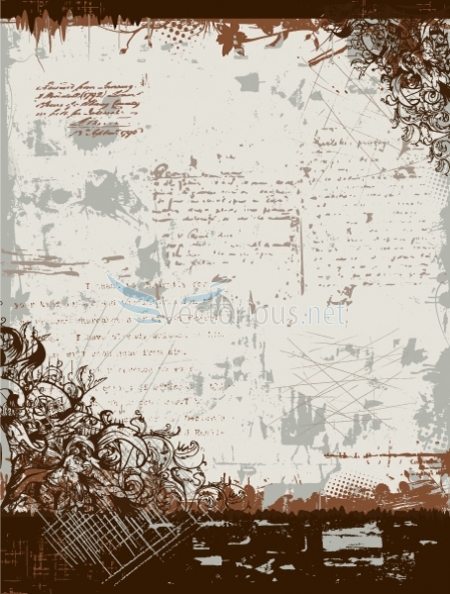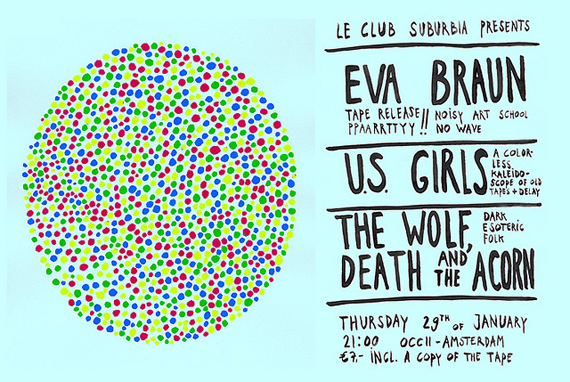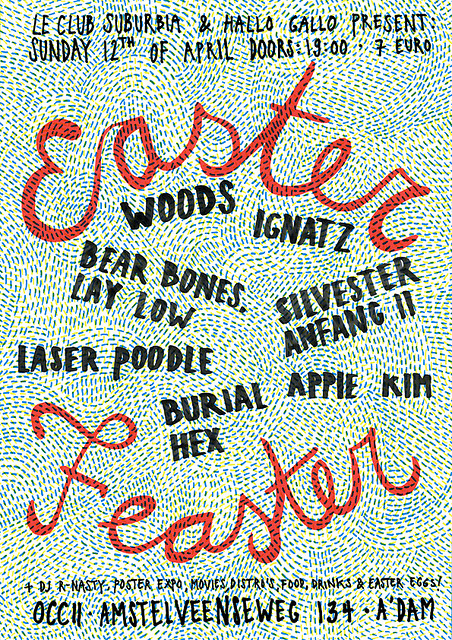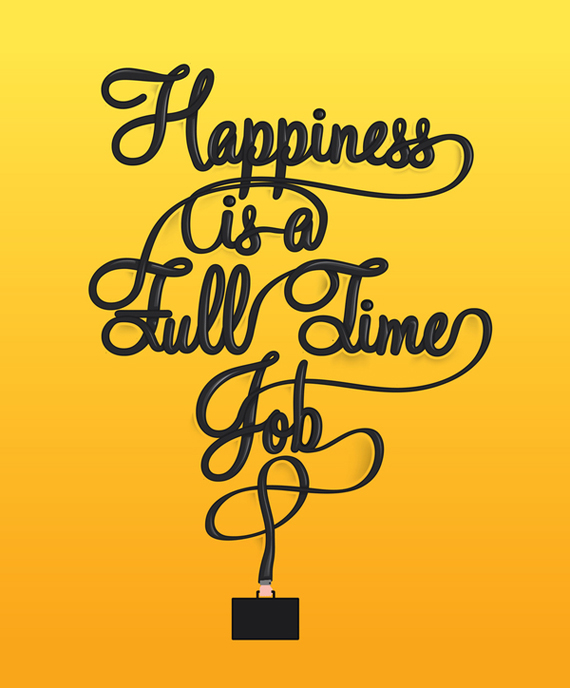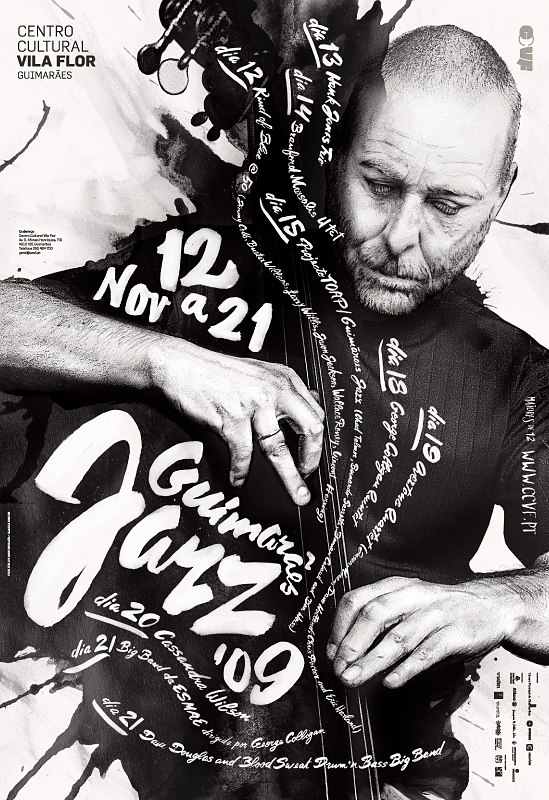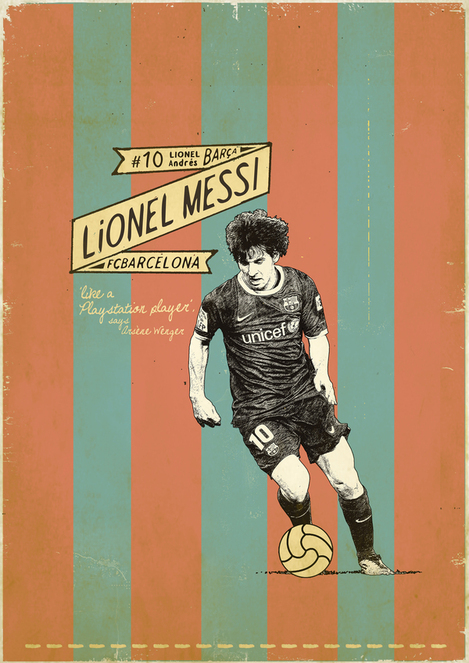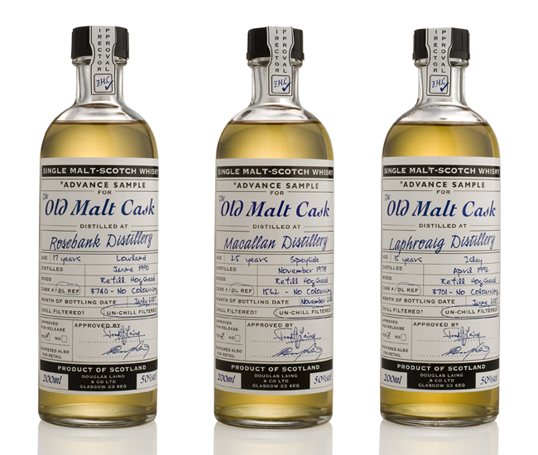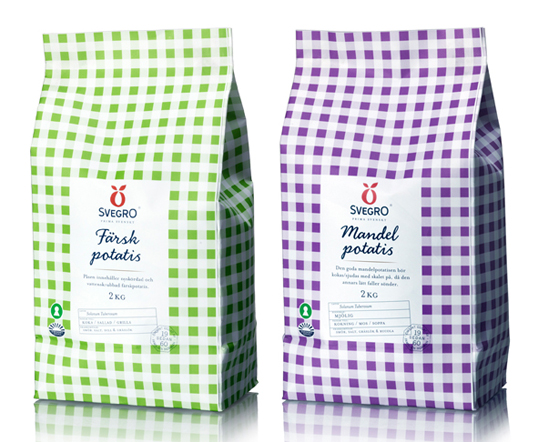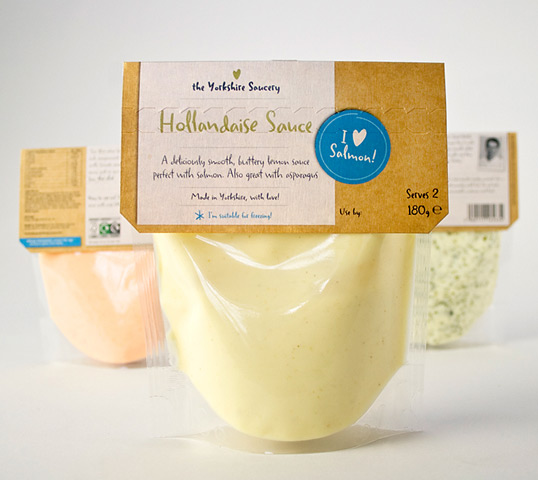
Handwritten Fonts – A Touch of Creativity in Your Designs
In this digital era, more and more people don’t even know how to hand write anymore! Handwriting has lost ground to computer generated fonts. I personally like to believe that handwriting is not “dead”! I have an agenda and I write in it everyday and I think that there are still people who use handwriting in everyday life and in design.
I admit that I’m glad that now we can send emails instead of letters and that information can go around much faster than in the days when we didn’t have emails or mobile phones. But that doesn’t mean that we should ban handwriting from our lives – we tried so hard to learn it in school, it brings back memories, emotions and it’s a pity to not use it anymore.
Designers have found a way to blend this beautiful handwritten style typography into their designs. Whether we’re talking about web design, vector illustrations, posters or something else, this style can make your artwork look so creative and unique!
There are so many styles of handwriting, each and every one of us has a special hand writing. If you want to create a truly unique handwriting font to use in your designs, to add a little human touch to them, you can even transform your handwriting into a digital font.
I asked my colleagues to write down the alphabet, check out their different handwriting:
As you can see, I have the prettiest handwriting! Just kidding. I wanted to say that each of our handwriting is different by letter leaning (mine is leaning left, while Doink’s is leaning right), spacing between letters, height of letters and so on.
Raluca is an artist so her handwriting must stand out! It’s large, airy and somewhat creative, in comparison to Laur’s handwriting which is in upper case – he rarely writes anything.
Here are some examples of creative use of handwritten fonts in design:
Handwritten fonts in web design
Handwritten fonts in vector illustrations
Vintage invitation vector background
Grunge background with floral vector background
Illustration: Cupcakes (version 2)
Andrzej Franaszek for Przekroj
Handwritten fonts in poster design
Poster and flyer for the Eva Braun releaseparty
Handwritten fonts in product package design